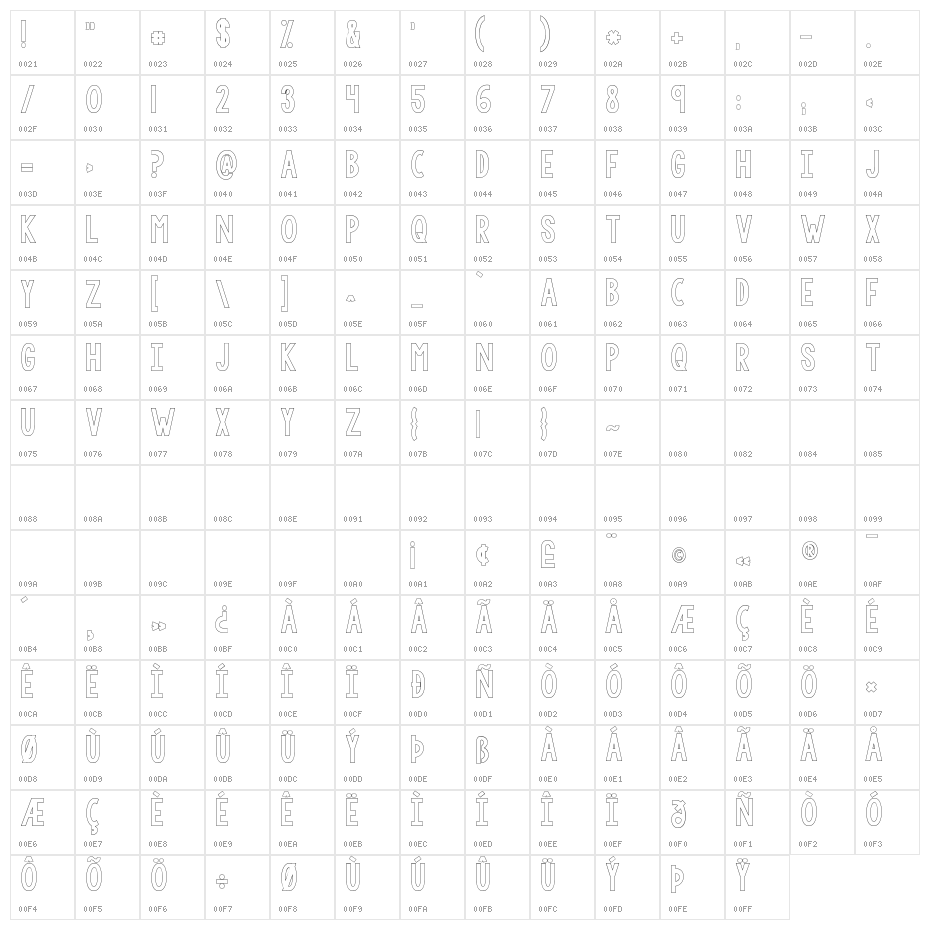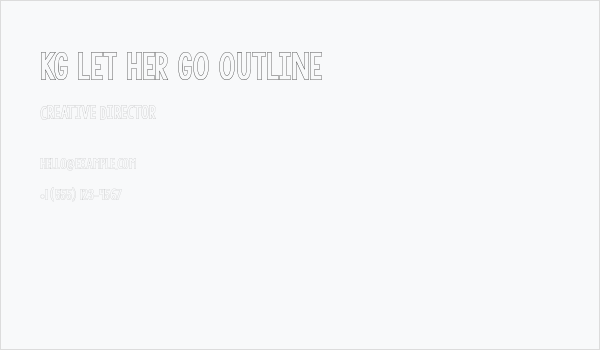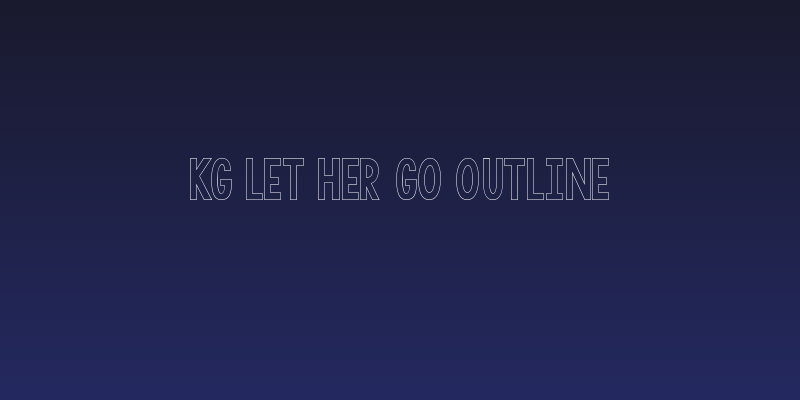
KG LET HER GO OUTLINE Font
KG LET HER GO OUTLINE Description
This font features a bold, geometric outline style that gives it a modern and playful appearance. The characters are uppercase and lowercase letters, numbers, and a variety of special symbols, all presented with a consistent outline thickness. The design is clean and straightforward, with each letterform exhibiting a uniform width and height, contributing to a balanced and cohesive look. The font's outline nature allows for creative use of color and background, making it versatile for various design projects. Its simplicity and clarity make it highly legible, even at smaller sizes, while the outlined style adds a unique touch that can enhance visual interest.
| Proposed Projects | Ideal for headlines, posters, logos, and creative design projects where a bold and unique style is desired. |